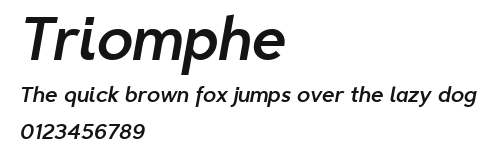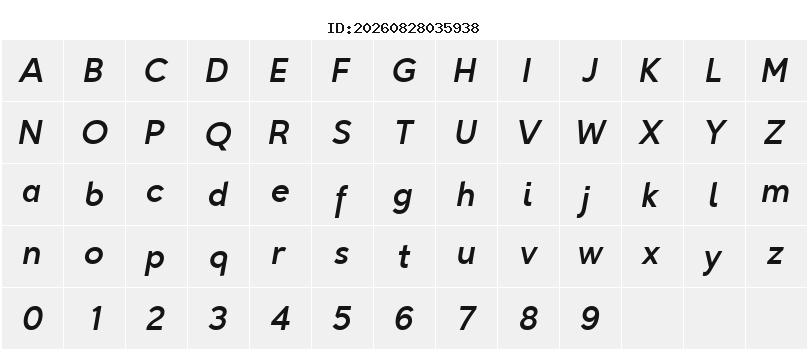
Triomphe Preview
• Font Name: Triomphe
• Full Font Name: Triomphe Italic
• Designer: Jérémie Dupuis
• Manufacturer: Jérémie Dupuis
• Description: FEATURES ——————— - Supports: Latin, Vietnamese, Greek and Cyrillic. - Proportional, tabular and old style numbers. - Six weights, from Thin to Extra Bold. - True Italics for all weights. CHANGELOG FOR V.3.0.0 —————————————— + Completely redone weights interpolation with two new weights. + New and extended language support: - Extended Latin to support all European languages. - Added support for Vietnamese - Added support for monotonic Greek - Added support for most Cyrillic languages. + Added many new currencies: - Drachma, Ruble, Indian rupee, Sheqel, Won, etc. + Added an alternate R. + Completely new spacing and kerning. + MANY many many many small, big and various changes to basically every glyph. - Removed the alternate latin small g.
Triomphe.ttf is a modern, elegant sans-serif font designed for ultimate readability and visual harmony. Perfect for branding, headlines, web design, and print materials.